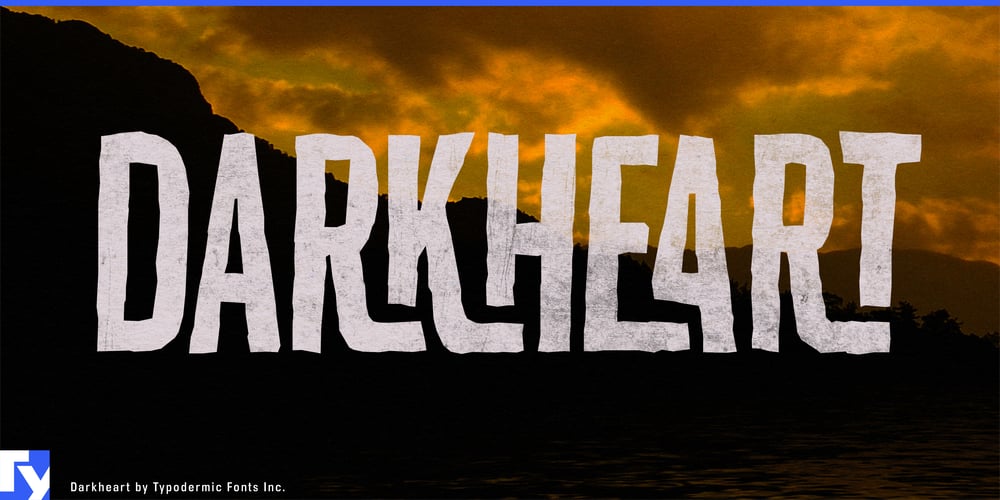
Darkheart Font Family was designed by Ray Larabie and published by Typodermic. Darkheart contains 1 styles and family package options. Prepare to unleash the shadows with Darkheart, a typeface that doesn’t just flirt with darkness—it embraces it with open, monstrous arms. This isn’t your average font; it’s a portal to a realm where letters writhe and squirm, channeling the eerie essence of 1960s horror cinema into every curve and crevice of its design.Darkheart’s condensed horror style doesn’t just catch the eye—it captures the soul. Its interlocking letterforms seem to crawl across the page, reminiscent of the creatures that once lurched and shambled across drive-in movie screens, sending shivers down the spines of an entire generation. Each character is a masterpiece of menace, designed to evoke a visceral reaction of delightful terror. But Darkheart isn’t just about looks—it’s about atmosphere. It lends your words a voice that’s equal parts mournful and terrifying, perfect for projects that aim to unsettle and enthrall. Imagine movie posters that seem to whisper dark secrets, book covers that readers hesitate to touch, or Halloween party invitations that set the tone for an unforgettable night of fright.The true magic of Darkheart lies in its ingenious use of ligatures. These aren’t just ordinary letter combinations—they’re incantations that summon the very essence of horror. As you type, watch in awe as the letters automatically interlink, creating combinations that seem to writhe and pulsate with dark energy. It’s as if the font itself is possessed, working its arcane magic to bring your most spine-chilling visions to life. Darkheart’s ability to terrify transcends language barriers, supporting over 100 Latin-based European writing systems. Whether you’re crafting a tale of terror in Turkish or designing a haunted house poster in Polish, Darkheart ensures your message remains as chilling in Zulu as it is in Afrikaans. It’s a global ambassador of fear, ready to spread dread across borders and cultures.This typeface isn’t just a tool—it’s a collaborator in your darkest creative endeavors. It’s for designers who understand that true horror lies not in what’s shown, but in what’s suggested. For those who know that the right typography can turn a simple phrase into a whispered curse. For creators who aren’t afraid to peer into the abyss and let their designs reflect what peers back.So, are you ready to give your audience goosebumps? To create designs that linger in the mind long after the lights go out? Embrace the darkness with Darkheart.